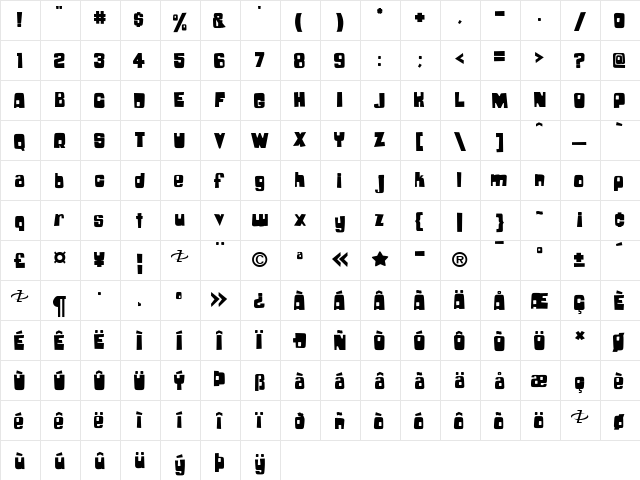
Boochie Regular
Design Context for Boochie Typeface
Boochie is a composed and adaptable typeface that performs quietly and consistently across a wide range of design contexts.